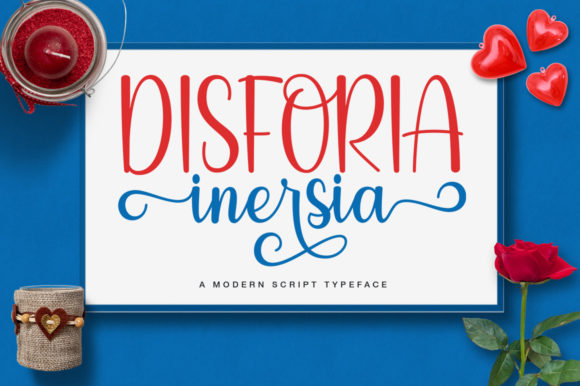
Journey into the realm of captivating typography with Disforia Inersia, a mesmerizing script font that exudes elegance and charm. This exquisite creation by Skinny type is meticulously crafted to evoke a sense of luxury and sophistication in every design project.
Disforia Inersia's light, airy strokes dance across the page with a fluidity that is both graceful and captivating. Its unique character set, featuring a harmonious blend of flowing curves and delicate serifs, adds a touch of timeless beauty to any design. Whether you're crafting a book cover that demands attention or adding a personal touch to your branding materials, Disforia Inersia is the perfect choice for making a lasting impression.
Unleash your creativity and let Disforia Inersia guide you through a world of captivating designs. Its versatility knows no bounds, effortlessly complementing a wide range of projects, from wedding invitations and greeting cards to logos and social media graphics. As a PUA-encoded font, Disforia Inersia empowers you to effortlessly access its entire repertoire of glyphs and ligatures, opening up endless possibilities for customization and personalization.
With Disforia Inersia, the ordinary becomes extraordinary. Experience the transformative power of typography as your designs take on a new level of sophistication and elegance. This font is more than just a collection of characters; it's an invitation to embark on a creative journey, where your imagination knows no limits.
Don't settle for ordinary fonts. Elevate your designs to new heights with Disforia Inercia, the ultimate choice for discerning designers seeking a touch of luxury and sophistication. Embrace the beauty of handwritten elegance and watch as your creative visions come to life with breathtaking results.